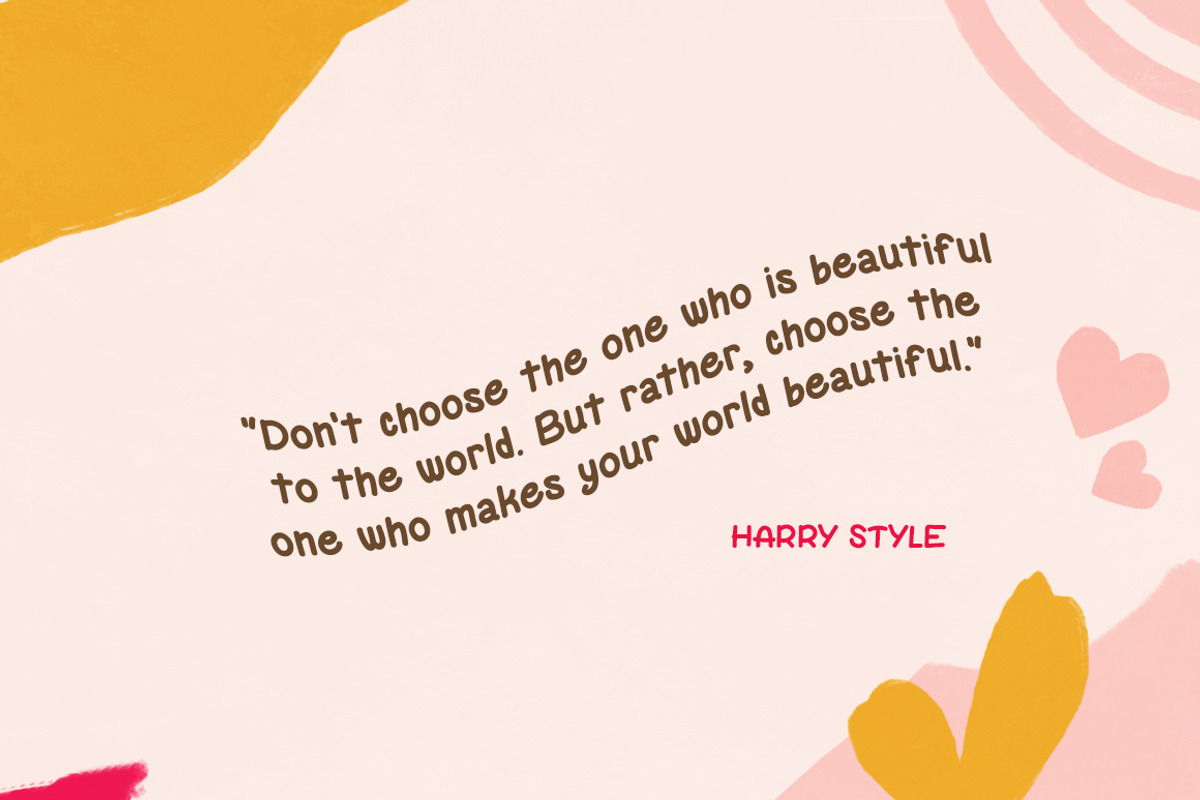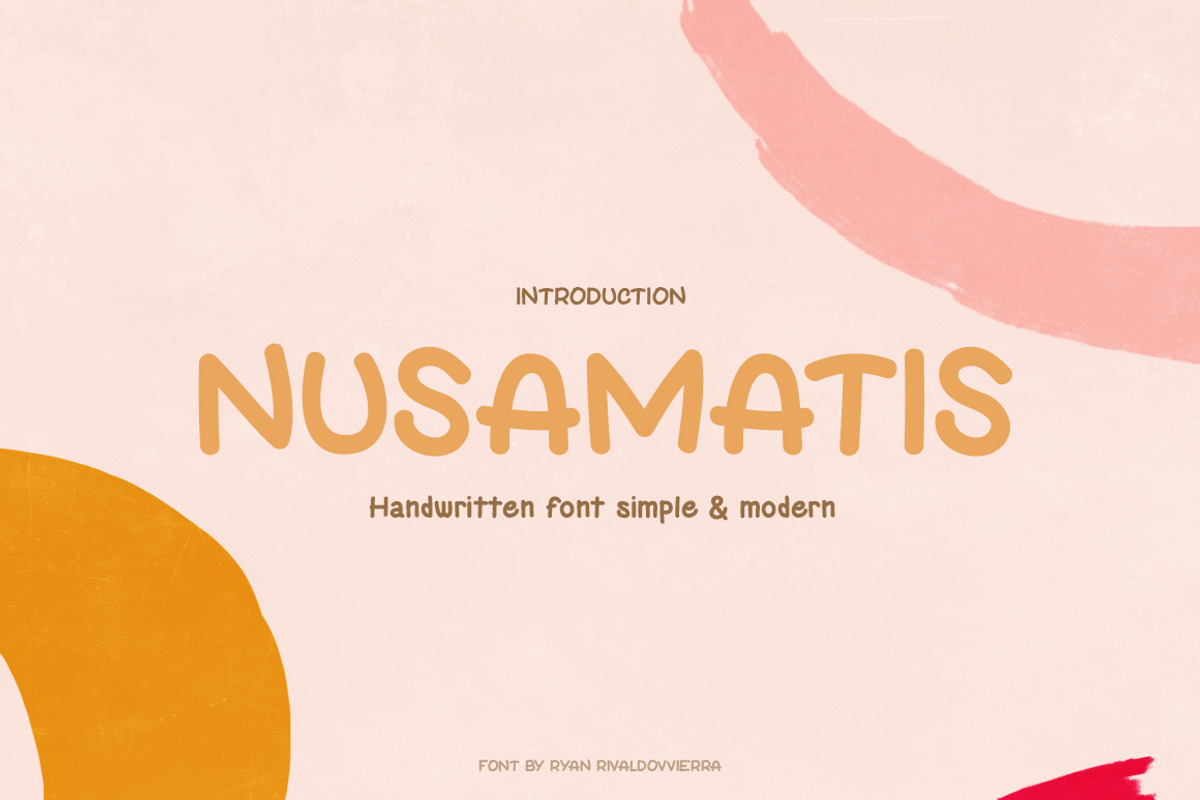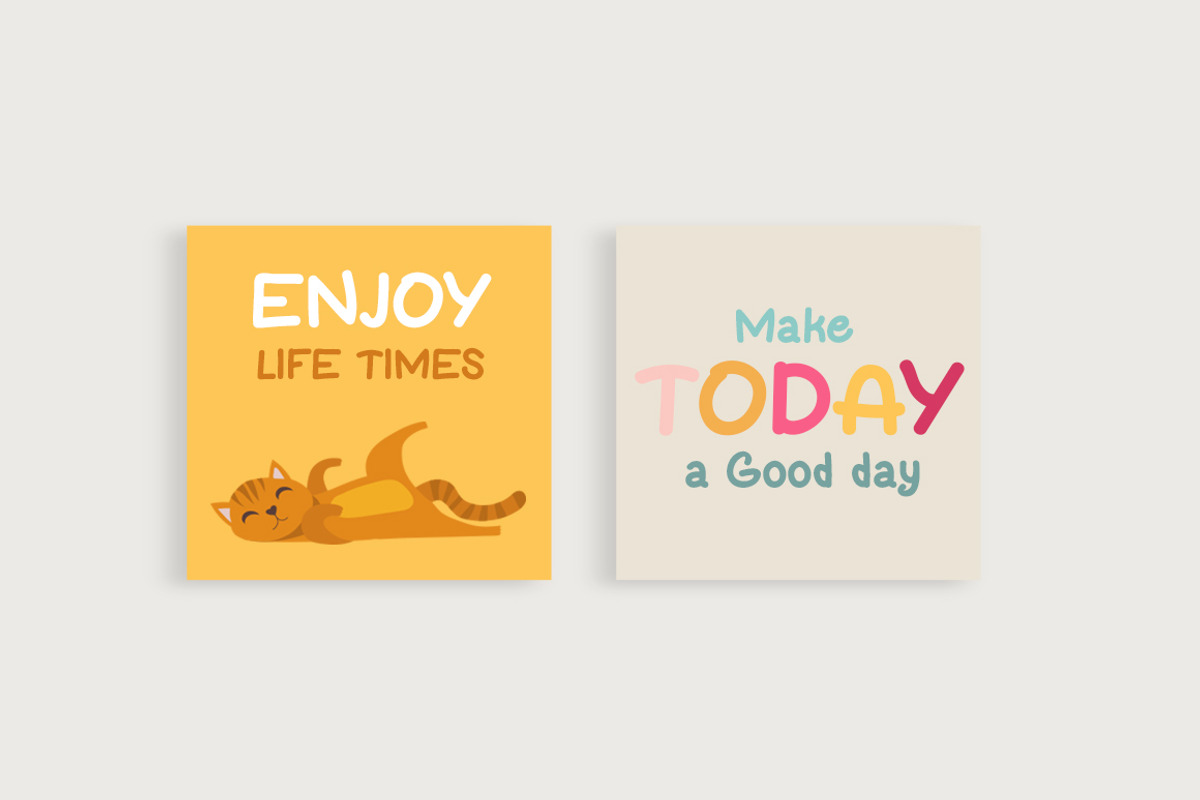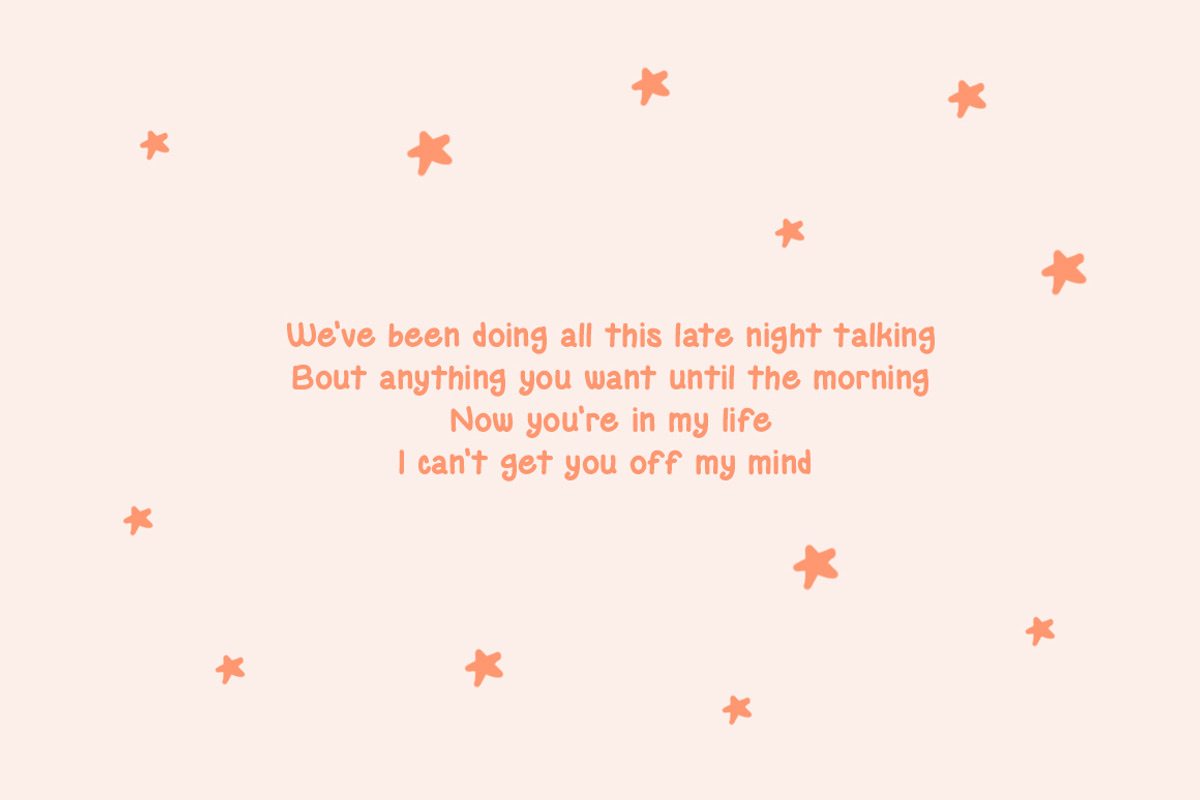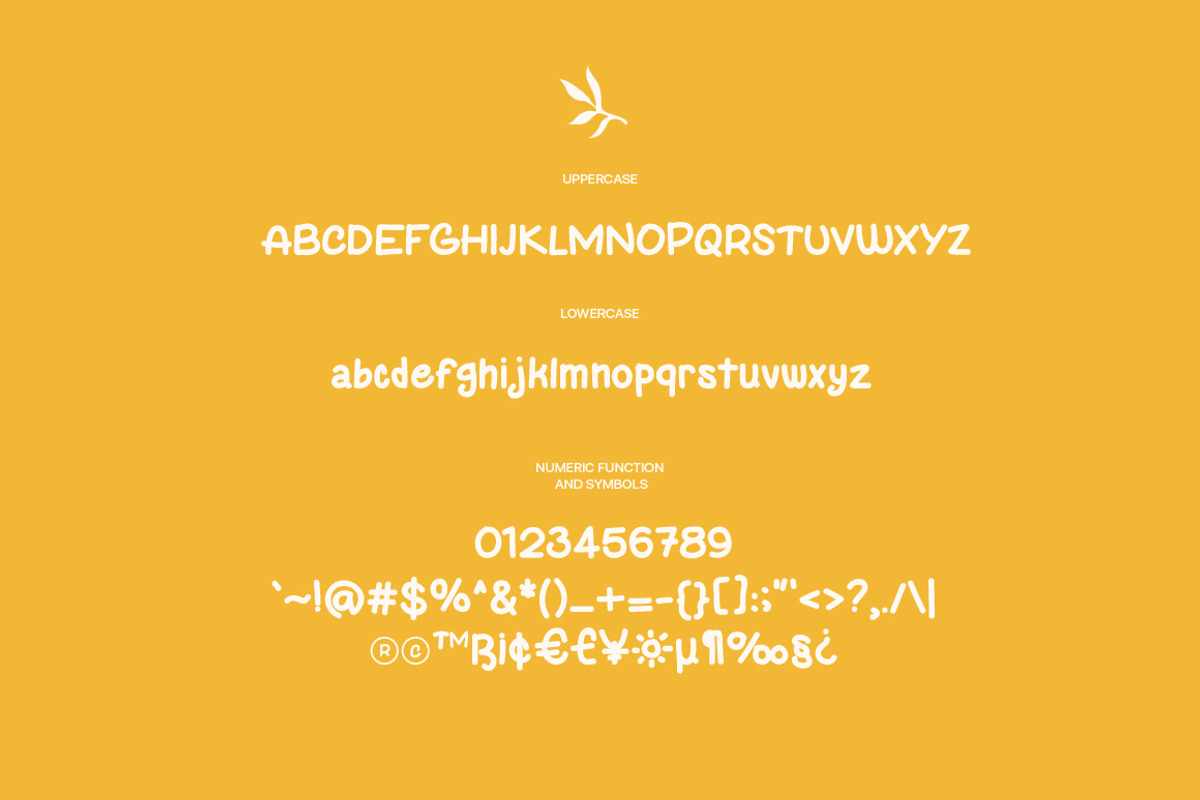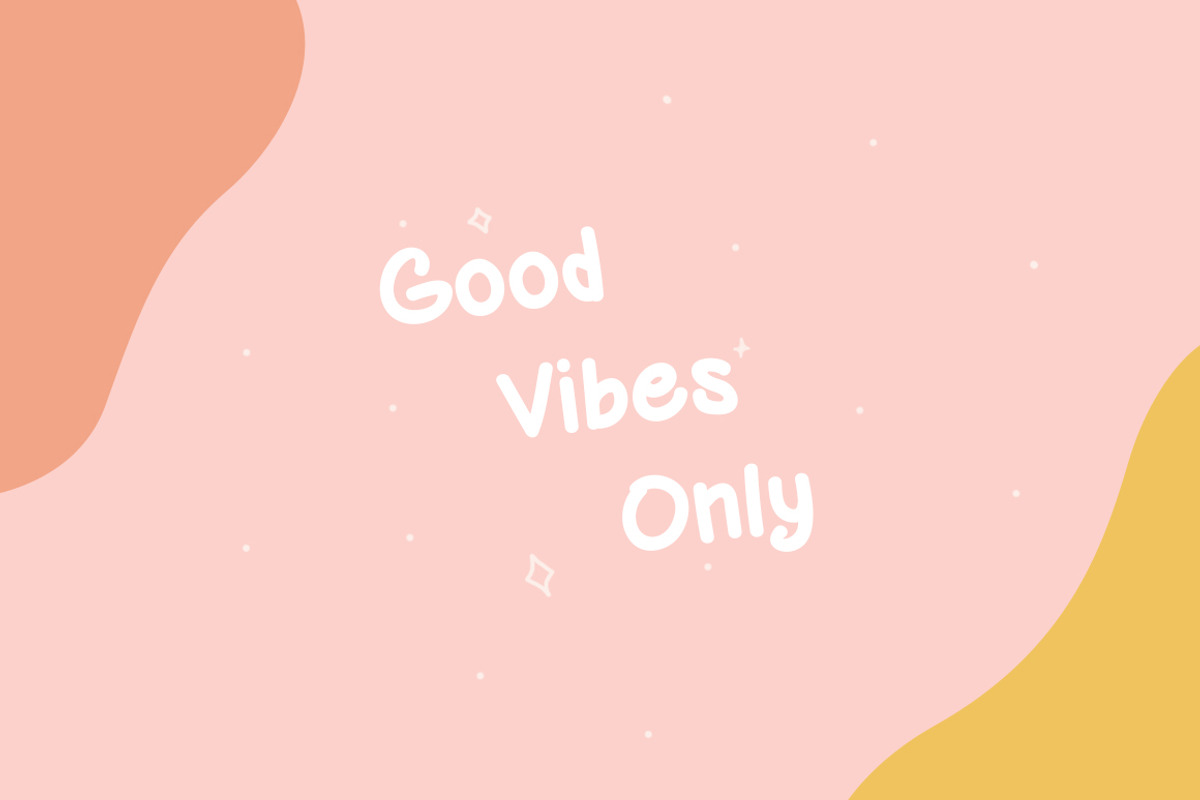
Nusamatis handwriting font
Nusamastis Handwritten Font is a handwritten font that includes an uppercase, lowercase, number, and punctuation to create the cutest designs. This font is perfect for making beautiful quotes or posts